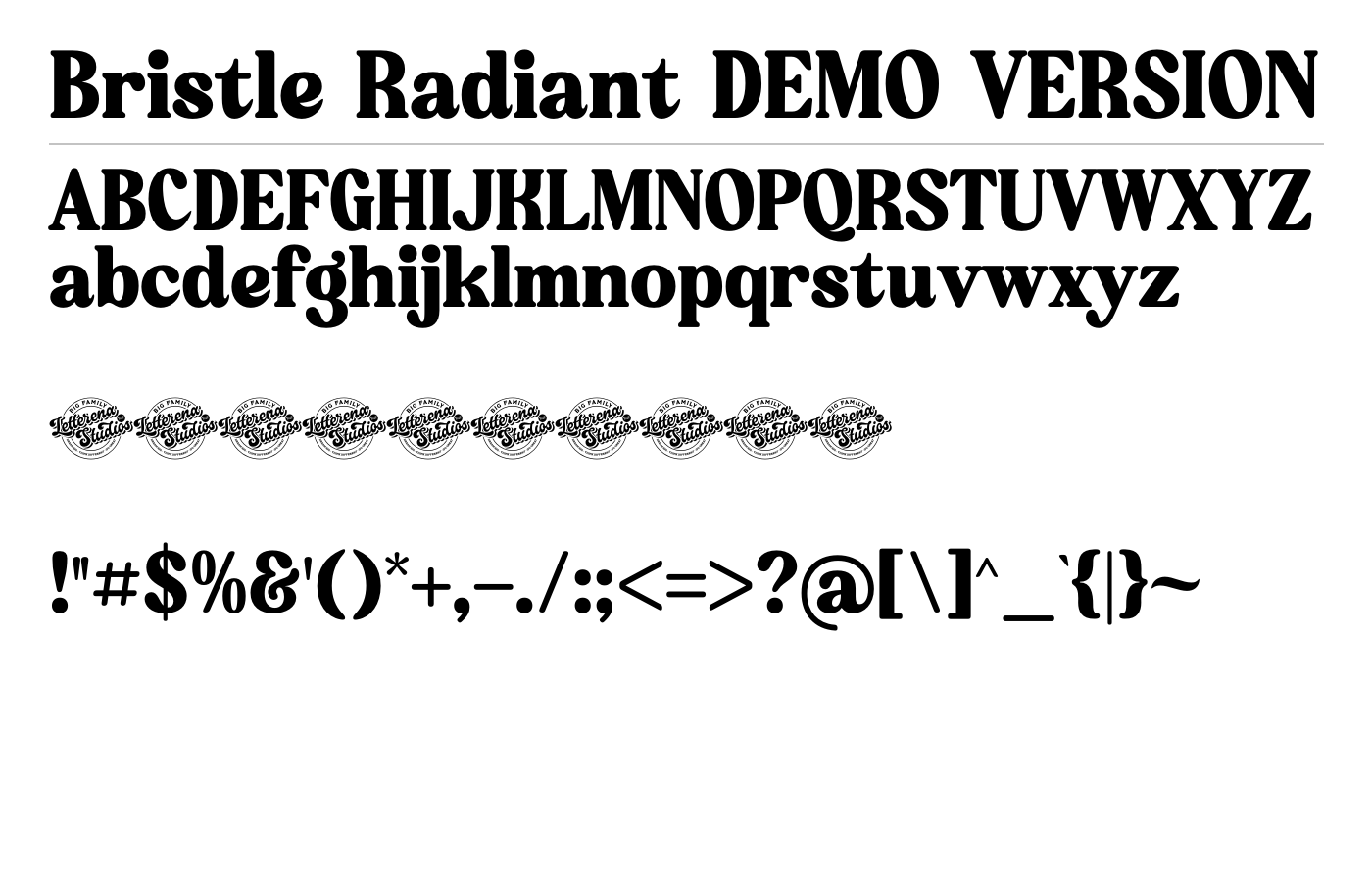
Bristle Radiant DEMO VERSION is a bold serif font with a sturdy, slightly condensed structure and high contrast between thick and thin strokes, lending it a strong and confident presence. Its classic, sharp serifs and distinctive letterforms give it a timeless and authoritative feel, making it ideal for impactful headlines, editorial design, and branding that seeks to blend tradition with boldness. This font works well where you want a sense of reliability and elegance with a modern edge.
Bristle Radiant DEMO VERSION Font
About Bristle Radiant DEMO VERSION Font